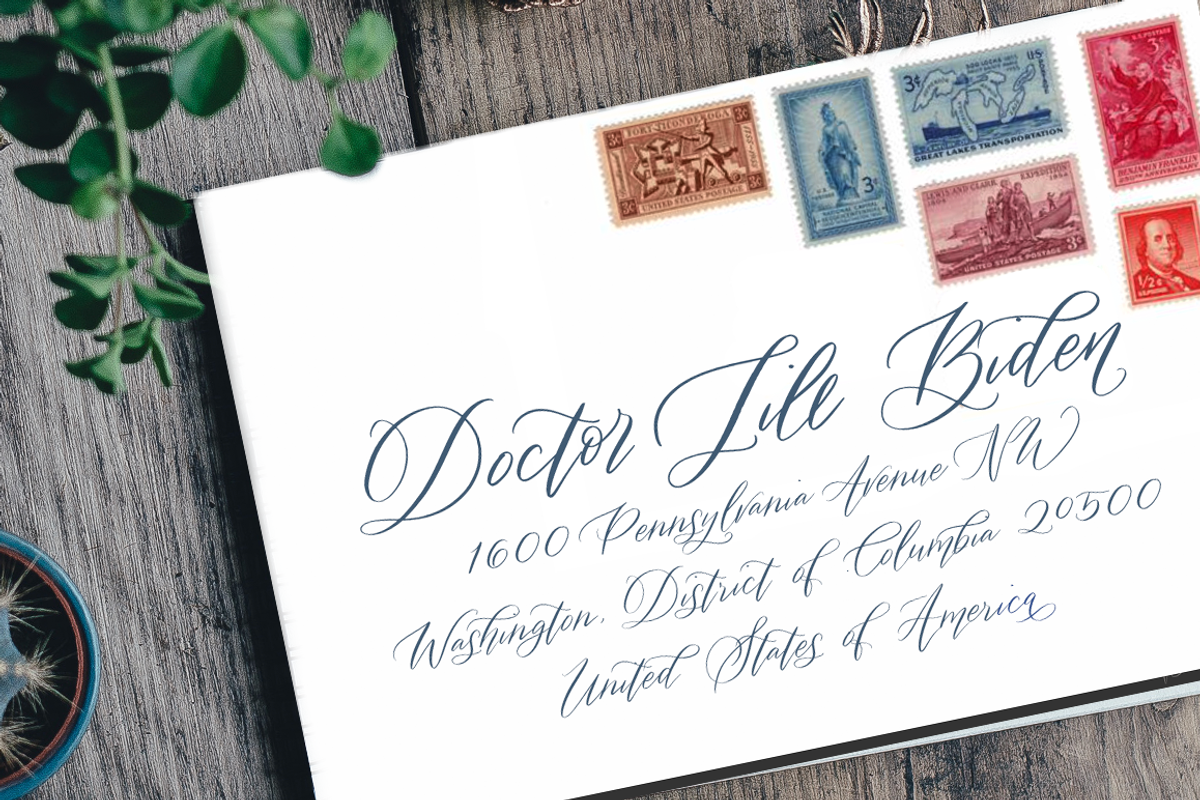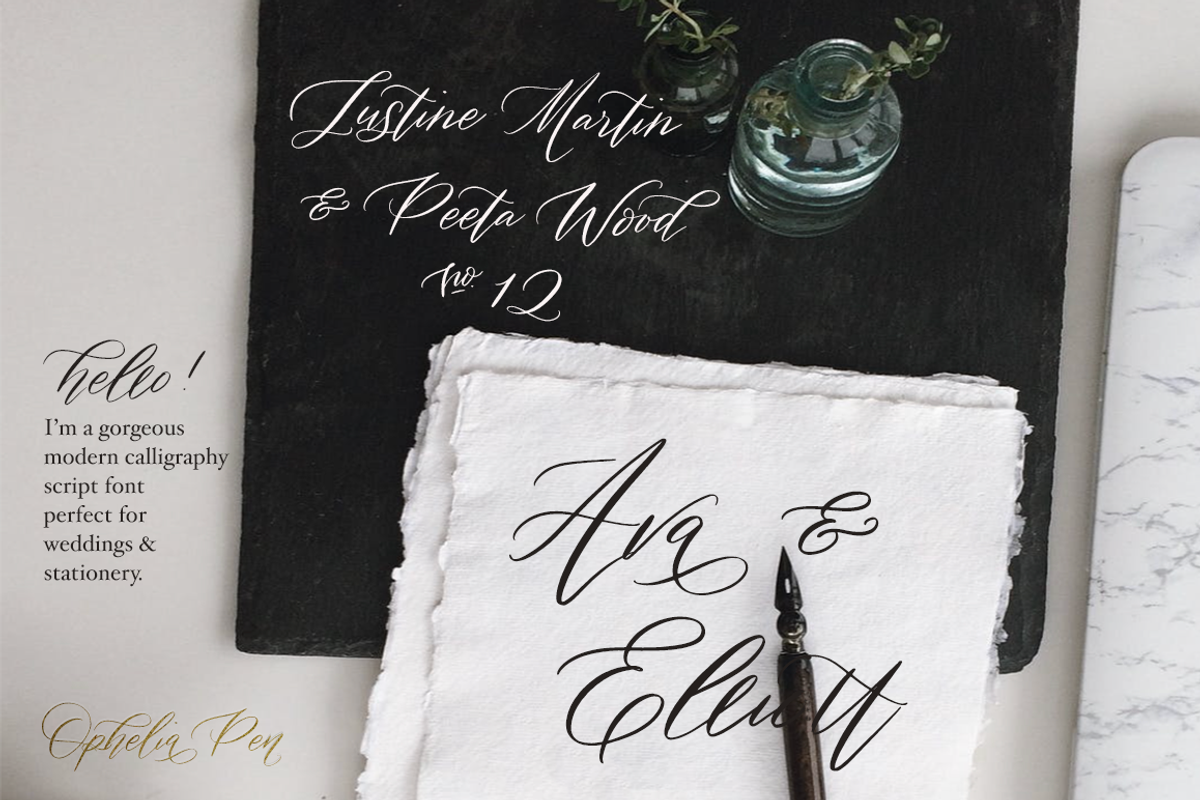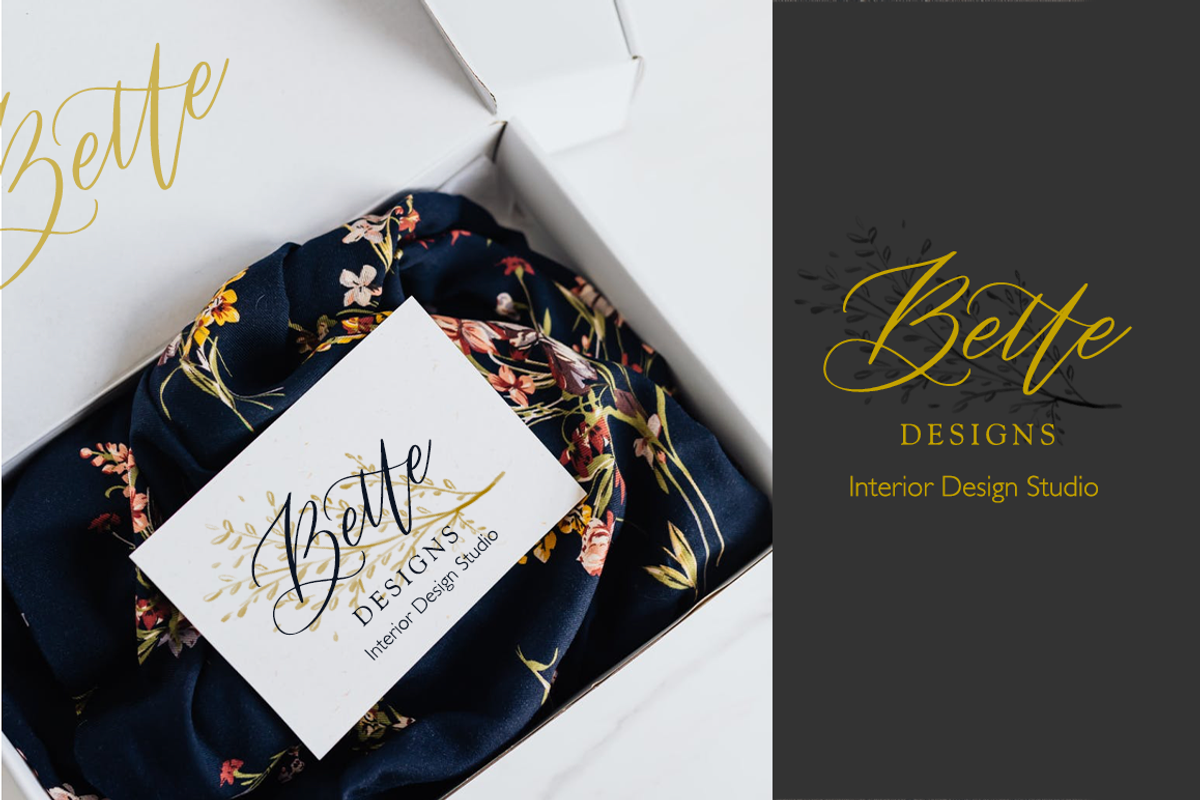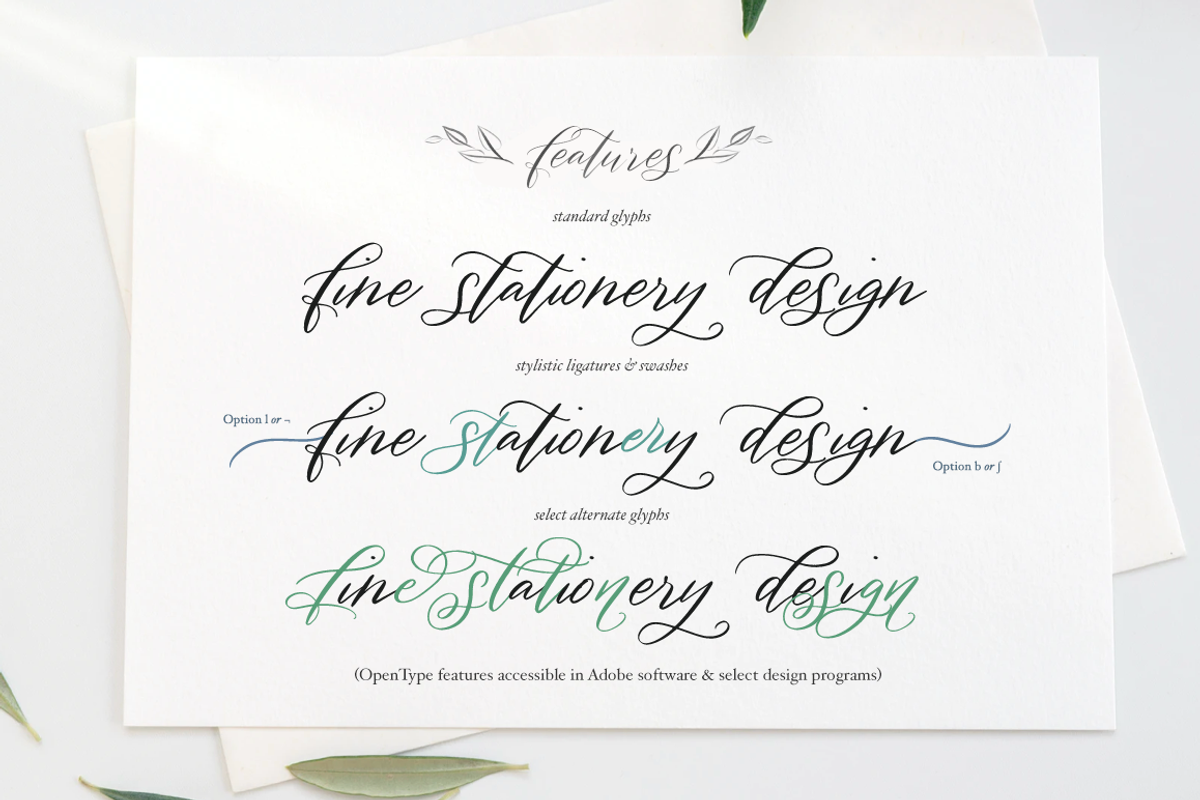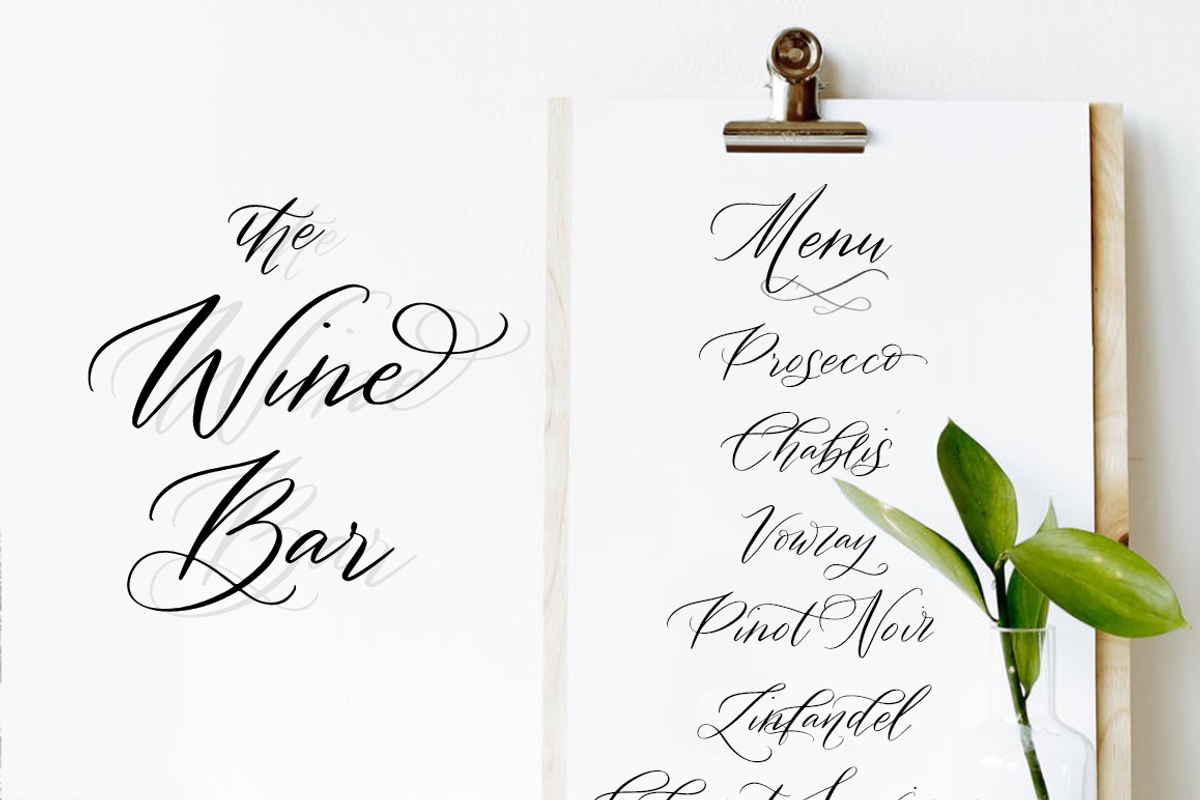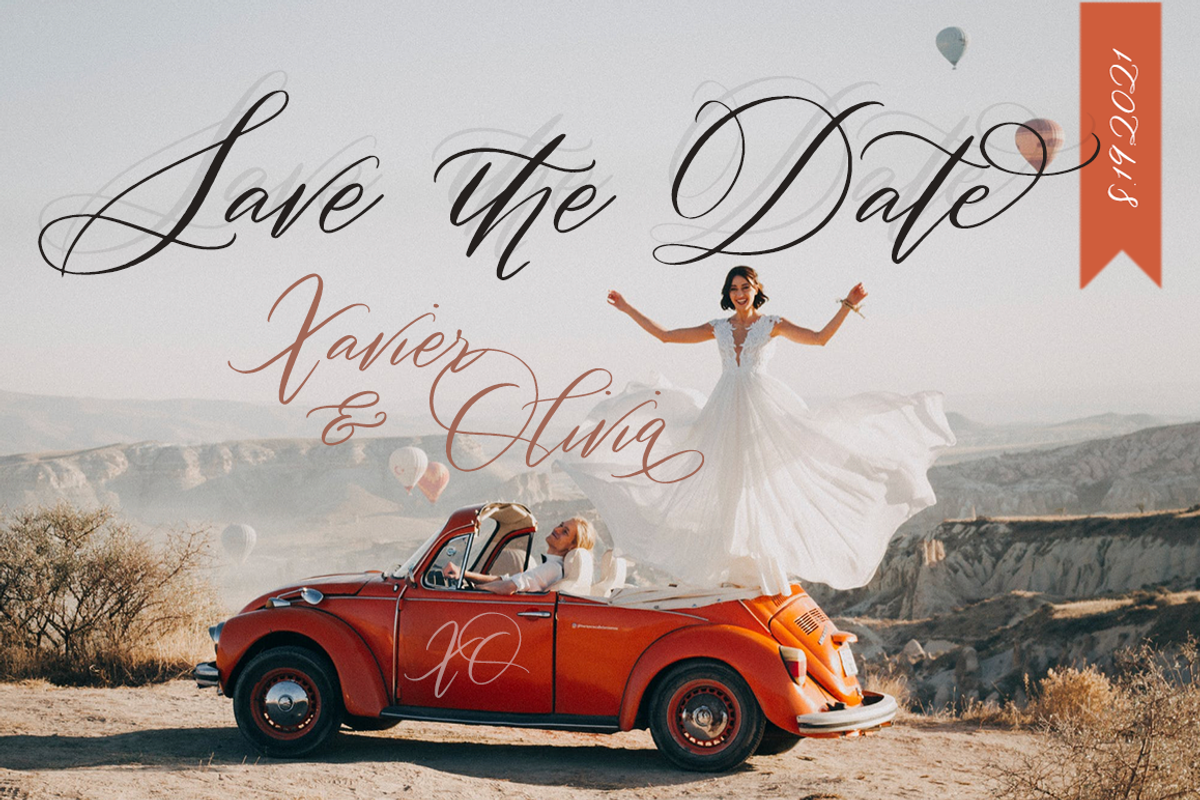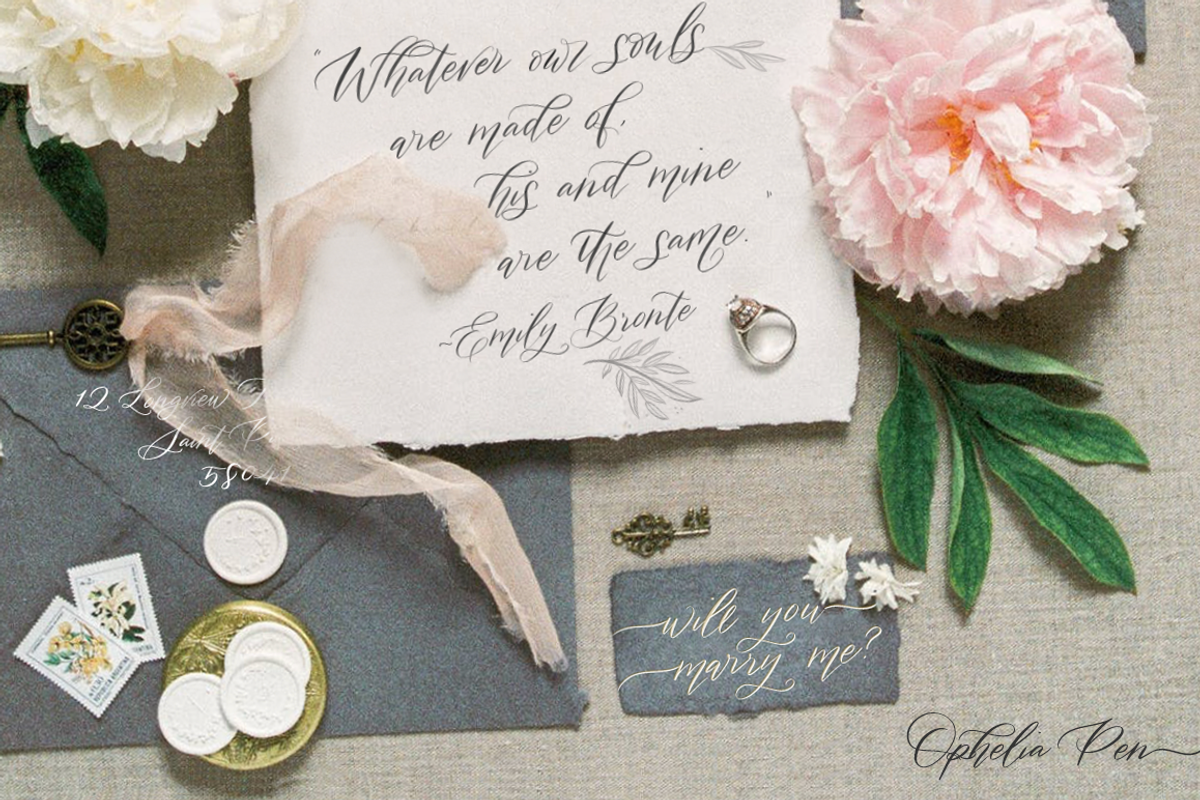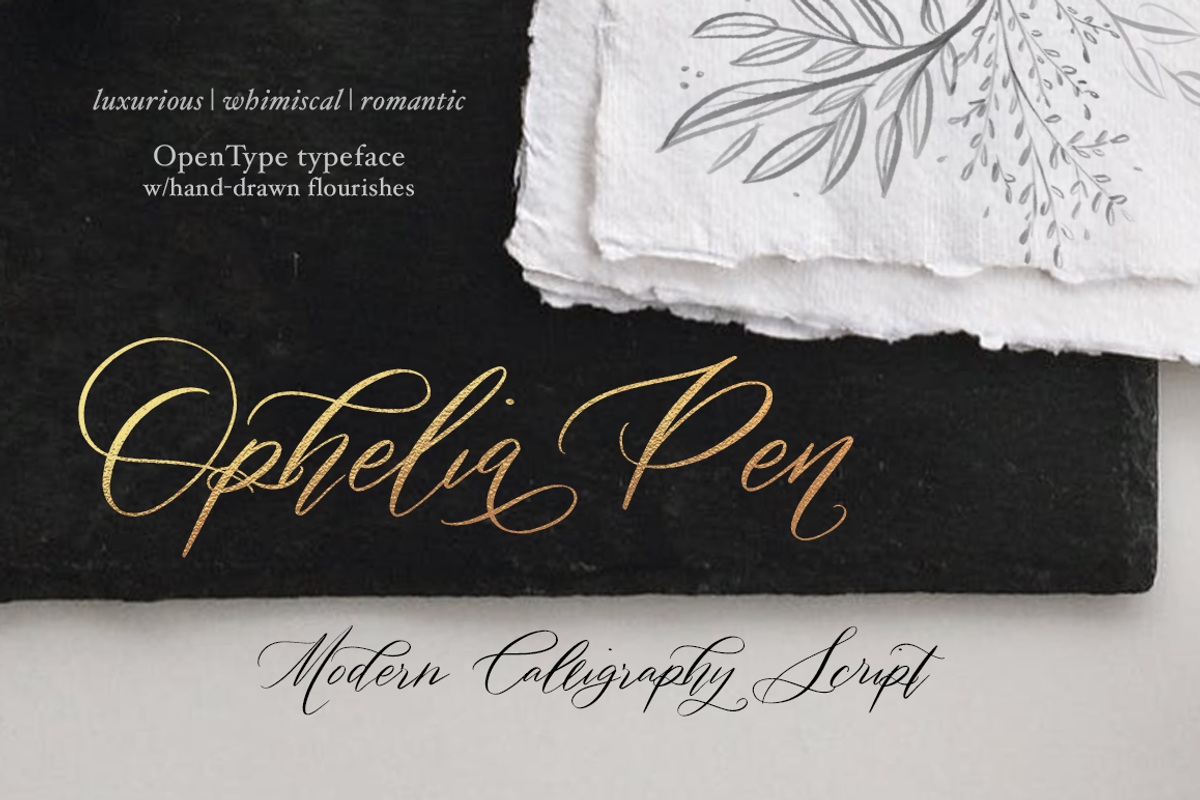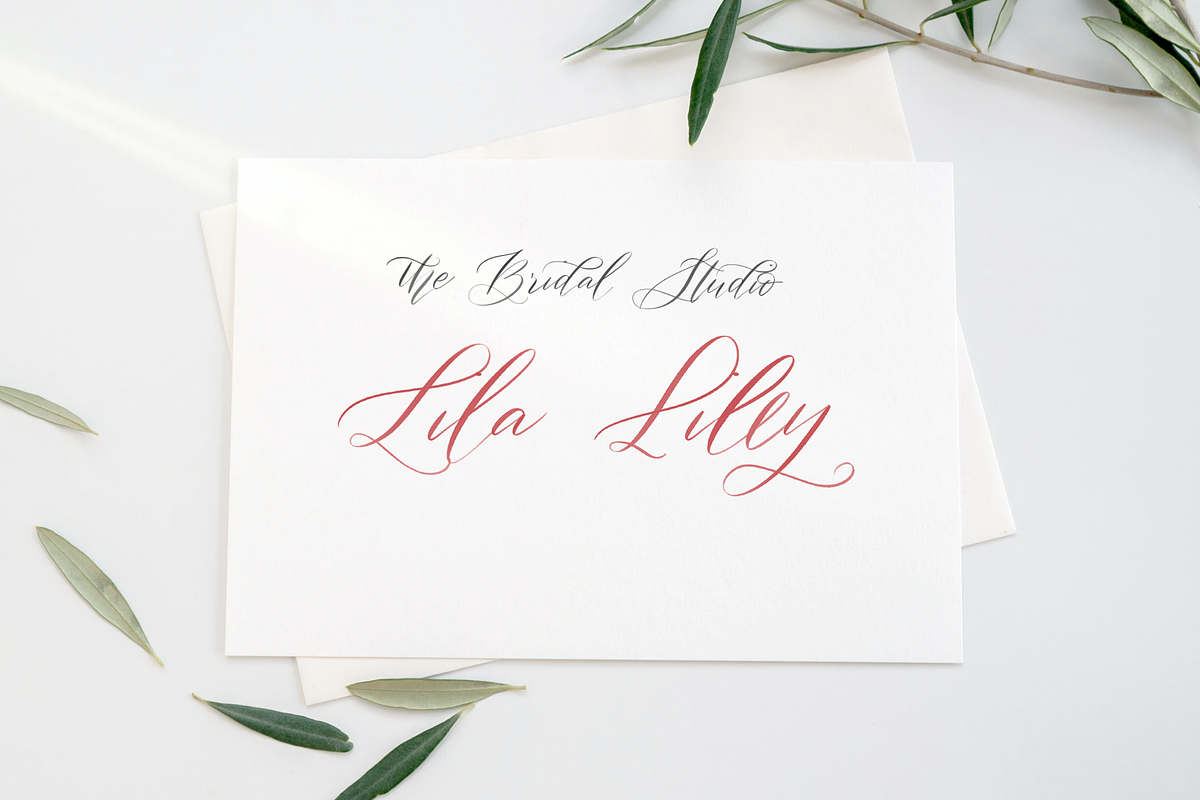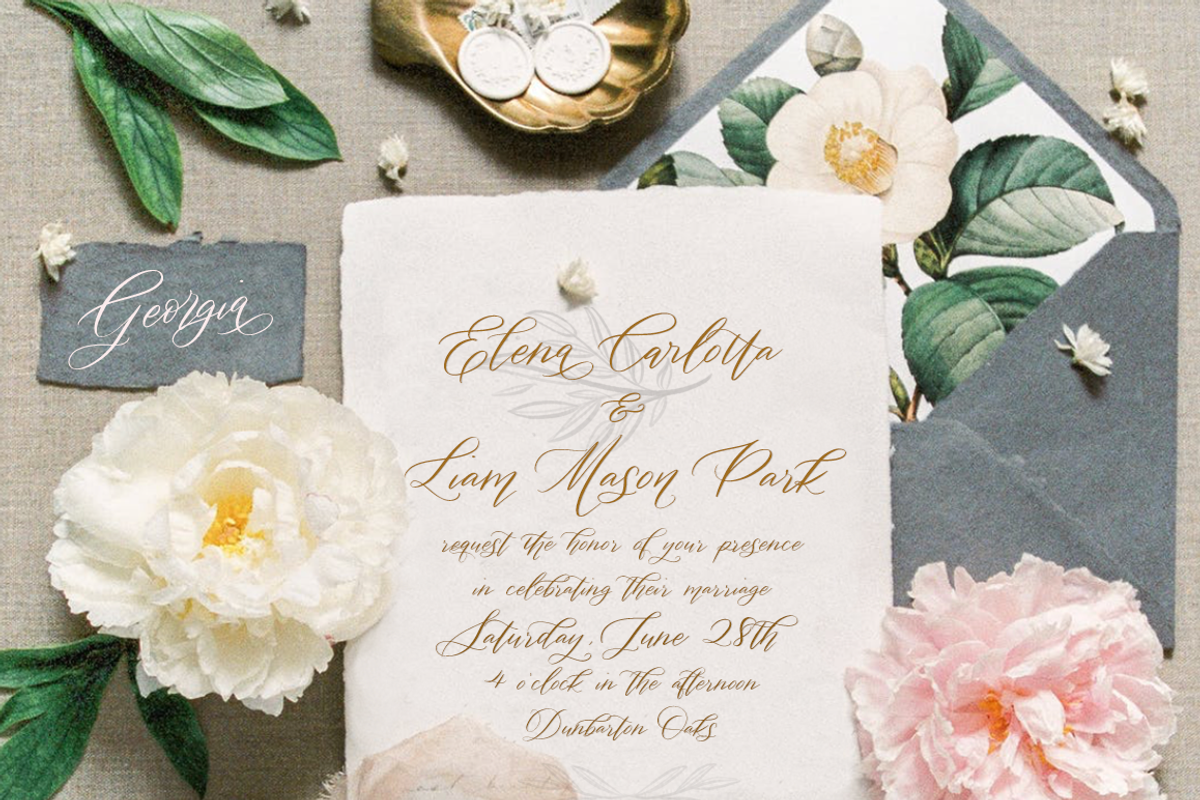
Ophelia Pen
Introducing Ophelia Pen Script
A Luxurious, Whimsically Romantic calligraphy script font with gorgeous alternative glyphs and standard plus stylistic ligatures which replicate the quirky variations of handcrafted calligraphy. Over the years, I've created hundreds of stationery suites and countless calligraphed wedding materials. This font is based on one of my most popular custom calligraphy styles.
The package additionally includes beautiful soft charcoal grey embellishments, botanical leaves, swirls, swashes & hearts. These hand-drawn flourishes were designed to complement Ophelia and have been converted into an easy to use raster font retaining all their subtle ink variations and lovely line qualities. (Click on the character chart poster to see the complete display of flourishes included in the font.) Enjoy!